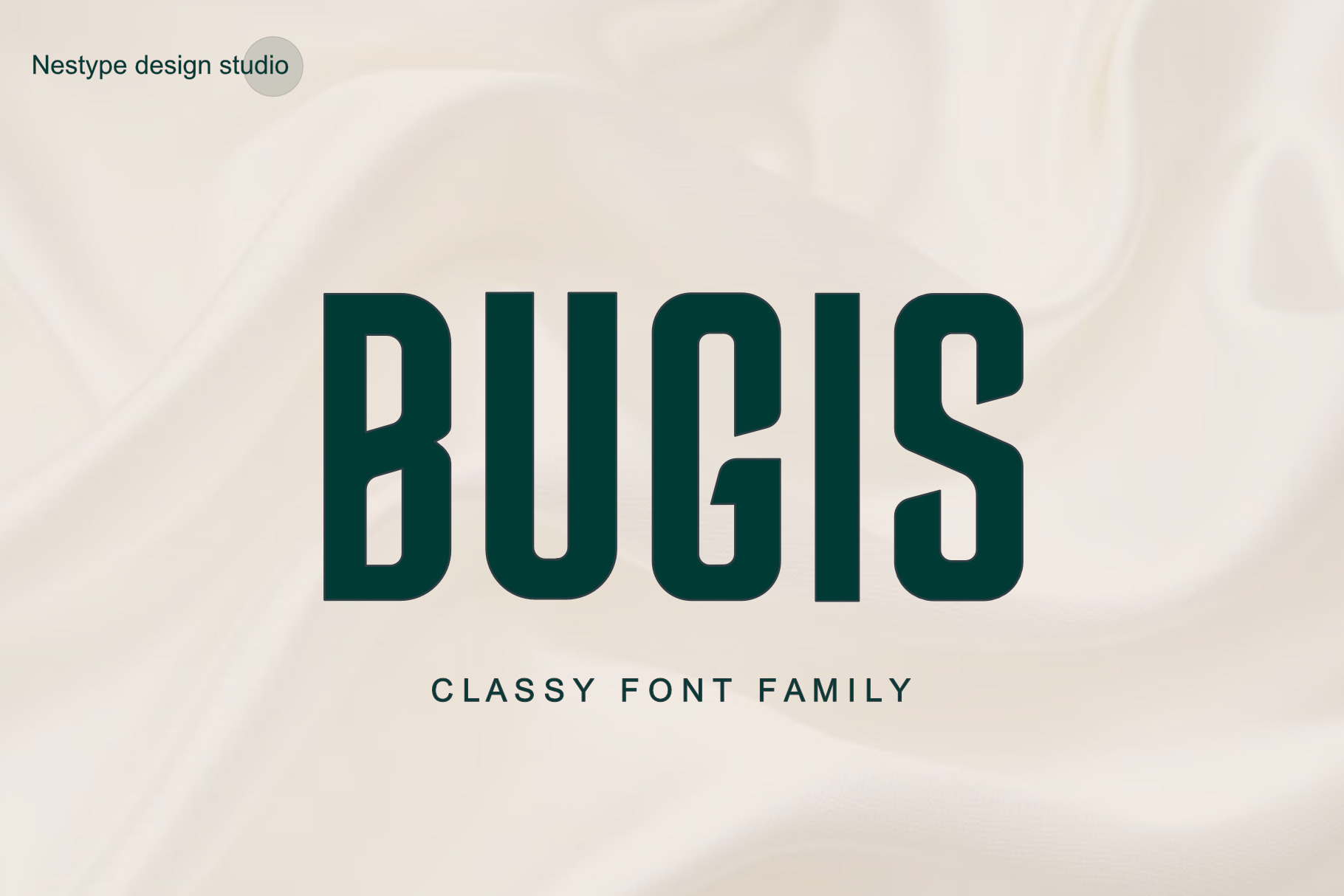
Bugis Upright Font
Bugis is a upright font. This is a very versatile font that works well in large and small sizes. Perfect for logo design projects, editorials, product packaging, Clothing Branding, magazine headlines, or just as a stylish text overlay to any background image.